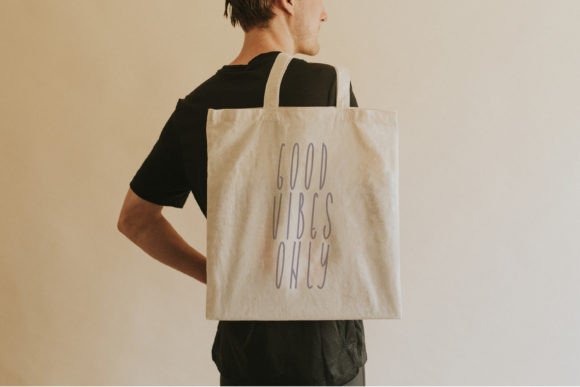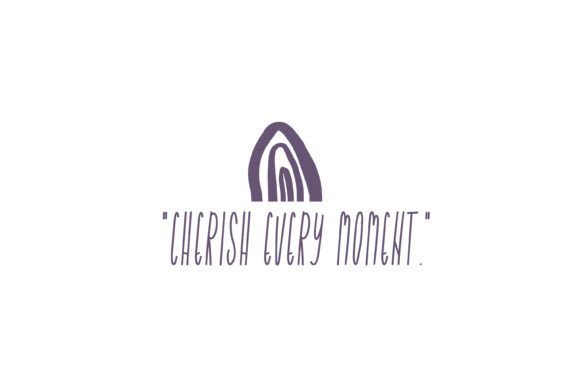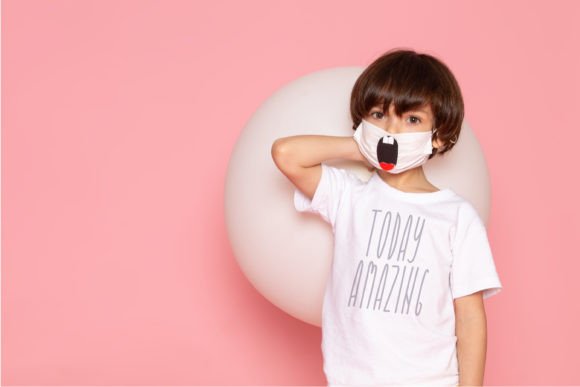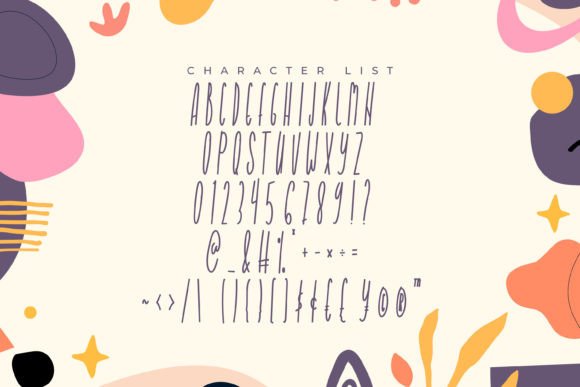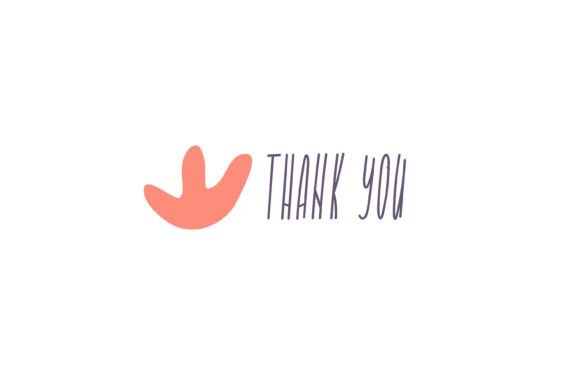
Introducing Great Days Font: The Perfect Choice for Fun and Creative Projects
Are you looking for a font that can add a touch of playfulness and cuteness to your designs? Look no further than Great Days Font! This delightful display font is perfect for any children activity or school project that requires a trendy and authentic feel. In this article, we’ll dive into the features and benefits of Great Days Font, and explore how it can elevate your designs to the next level.
What is Great Days Font?
Great Days Font is a modern and fun display font that is designed to bring a sense of excitement and energy to your designs. Its playful and cute aesthetic makes it an ideal choice for projects that require a youthful and vibrant feel. Whether you’re working on a children’s book, a school project, or a craft design, Great Days Font is the perfect choice to add a touch of whimsy and creativity.
Key Features of Great Days Font
- Playful and Cute Design: Great Days Font features a unique and adorable design that is sure to capture the attention of your audience.
- Trendy and Authentic: This font embodies the latest design trends and has an authentic feel that will make your designs stand out.
- Display Font: Great Days Font is a display font, making it perfect for headlines, titles, and other prominent text elements.
- Easy to Read: Despite its playful design, Great Days Font is easy to read, making it suitable for both digital and print designs.
Benefits of Using Great Days Font
So, why should you choose Great Days Font for your next project? Here are just a few benefits of using this amazing font:
- Adds a Touch of Whimsy: Great Days Font adds a playful and imaginative touch to your designs, making them more engaging and fun.
- Perfect for Children-Focused Projects: This font is specifically designed with children in mind, making it perfect for projects such as children’s books, activity sheets, and school projects.
- Versatile: Great Days Font can be used for a wide range of design projects, from digital designs to print materials.
- Easy to Pair with Other Fonts: This font pairs well with other fonts, making it easy to create a cohesive and visually appealing design.
How to Use Great Days Font in Your Designs
Using Great Days Font in your designs is easy! Here are a few tips to get you started:
- Use it as a Headline Font: Great Days Font is perfect for headlines and titles, making it a great choice for adding a touch of drama and excitement to your designs.
- Pair it with Other Fonts: Experiment with pairing Great Days Font with other fonts to create a unique and visually appealing design.
- Use it for Children’s Projects: This font is specifically designed with children in mind, making it perfect for projects such as children’s books, activity sheets, and school projects.
In conclusion, Great Days Font is a playful and cute display font that is perfect for any children activity or school project. Its trendy and authentic design makes it an ideal choice for designers and crafters looking to add a touch of whimsy and creativity to their designs. With its ease of use and versatility, Great Days Font is sure to become a favorite in your font collection.